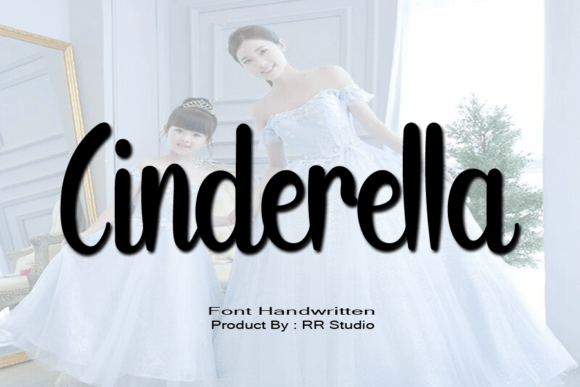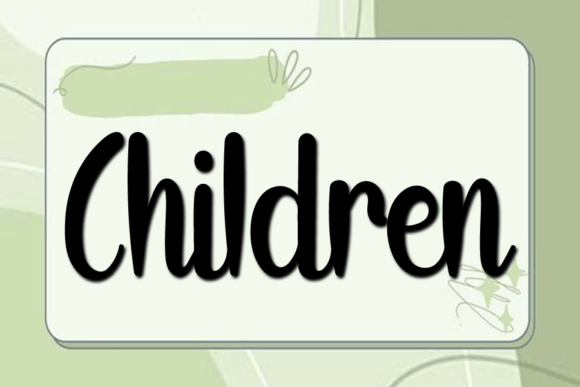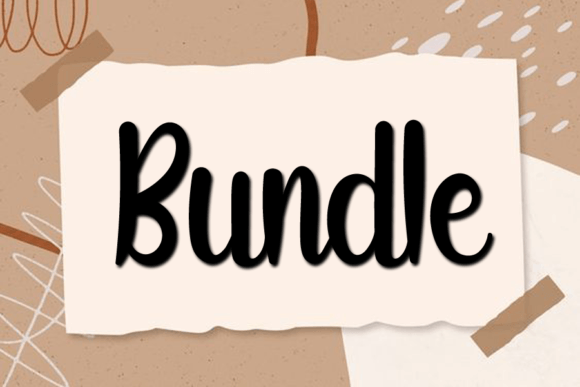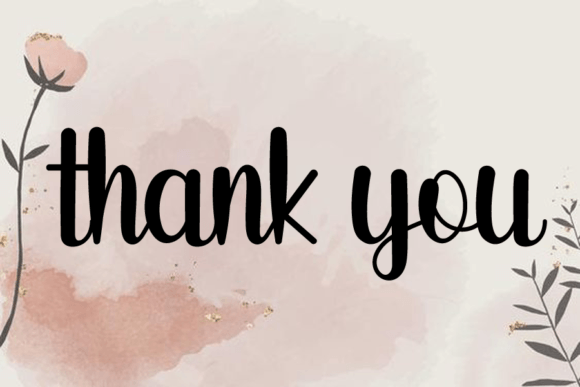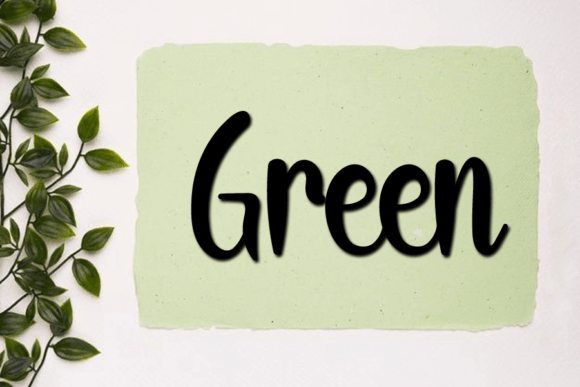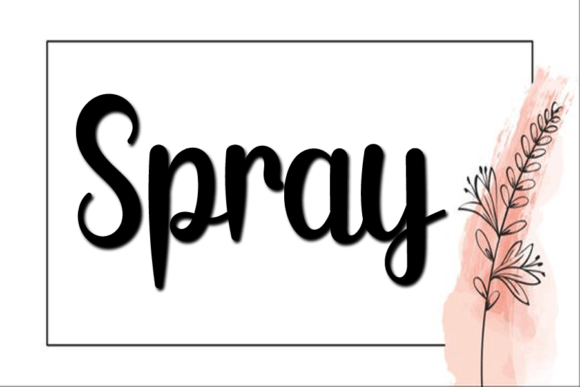
Cinderella Font
About Cinderella Font
**Cinderella Font: Classic and Simple Handwritten Elegance**
Introducing “Cinderella,” a classic and simple handwritten script font that captures the essence of elegance in a random and free-spirited style. This versatile font is perfect for a wide array of creative design projects, ranging from logotypes and headline fonts to corporate and brand identity, apparel industry, posters, music, movies, games, magazines, books, comics, cartoons, YouTube, Instagram, websites, and more.
**Classic Simplicity:**
Cinderella embraces a classic simplicity that adds a timeless and elegant touch to your designs. The free-spirited style of the handwritten script creates a visually appealing aesthetic that is both charming and versatile.
**Suitable for Various Creative Projects:**
This font finds its place in a diverse range of creative projects. Whether you’re working on corporate identity, branding, apparel designs, posters, or digital content for YouTube and Instagram, Cinderella adapts seamlessly to different design needs.
**Logotype and Headline Font:**
Cinderella shines as a logotype and headline font. Its handwritten charm brings a personalized and distinctive touch to brand identities and headlines, making your designs stand out with a unique character.
**Versatile in Corporate and Brand Identity:**
Whether you’re creating a corporate identity or establishing a brand presence, Cinderella fits the bill. The font’s simplicity and elegance contribute to a cohesive and memorable brand image.
**Perfect for Digital and Print Media:**
From digital platforms like websites and social media to traditional print media such as posters and magazines, Cinderella thrives in various environments, offering a seamless transition between online and offline design spaces.
**Universal Appeal for Creative Design:**
Cinderella possesses a universal appeal that spans different creative realms, from movies and games to books and comics. Its adaptability makes it a reliable choice for any project where a touch of handwritten elegance is desired.